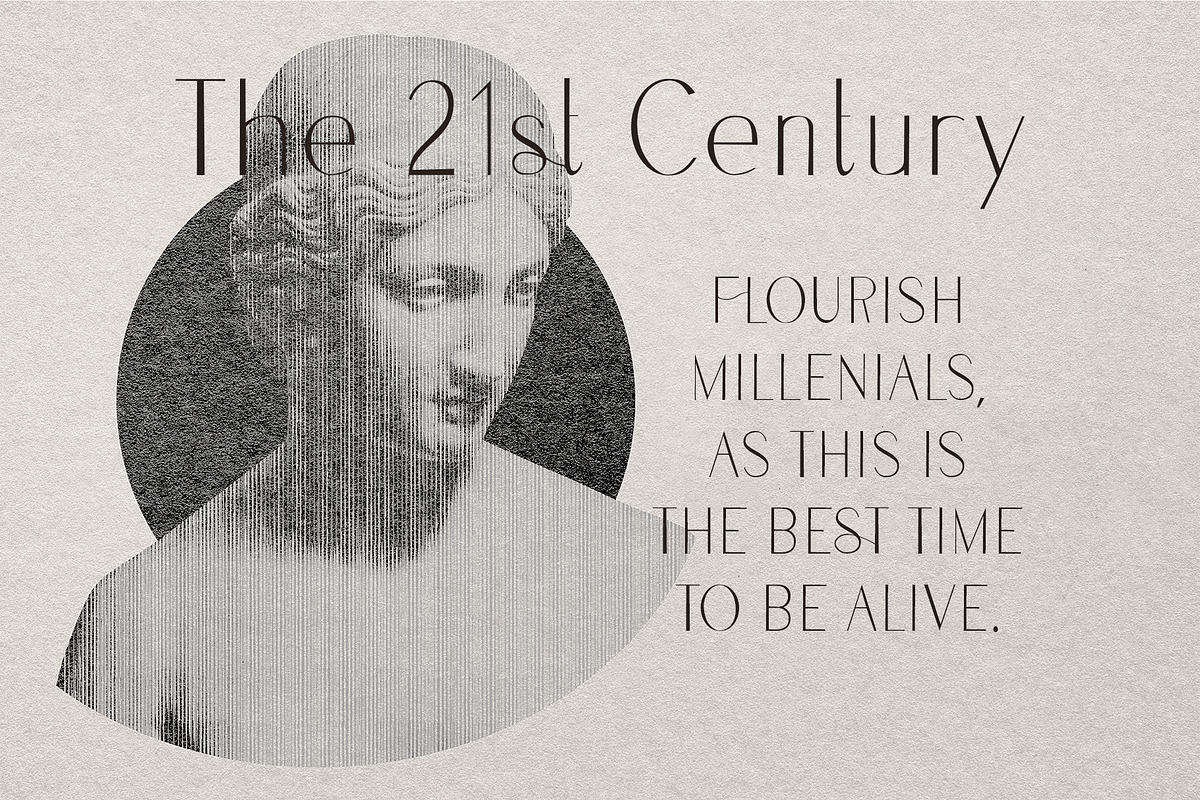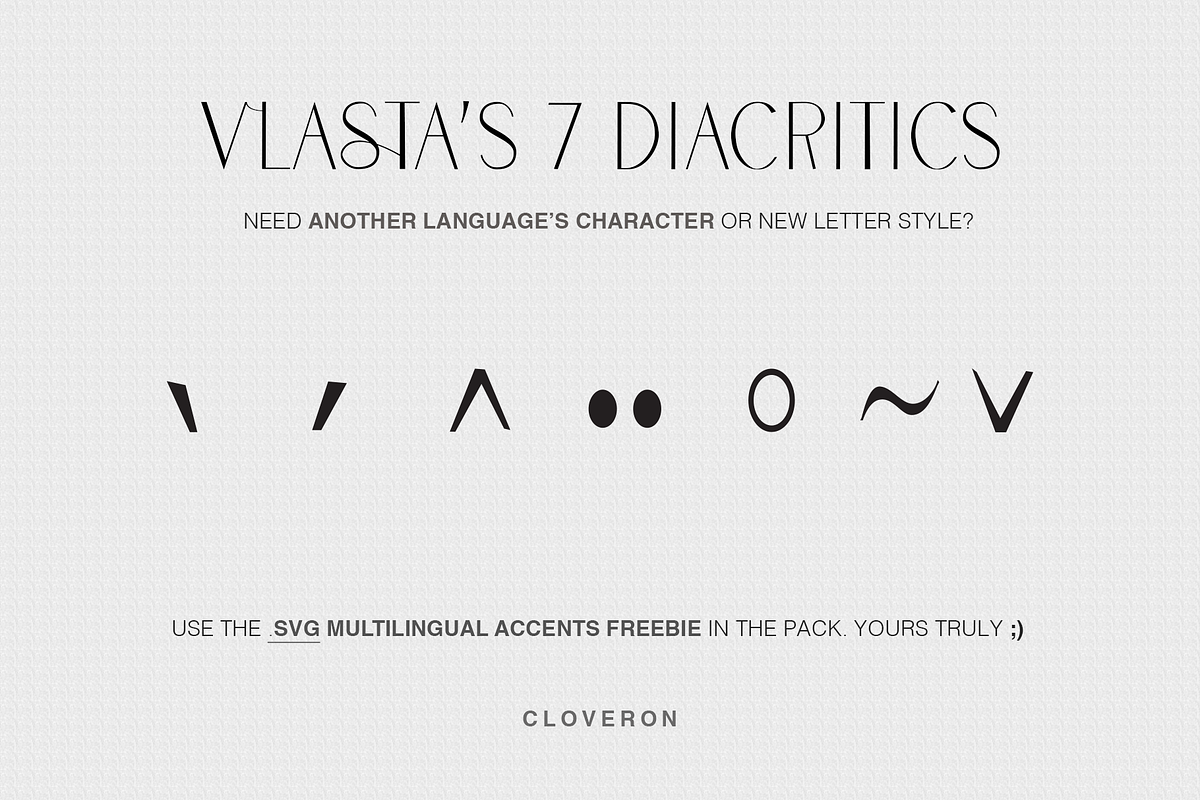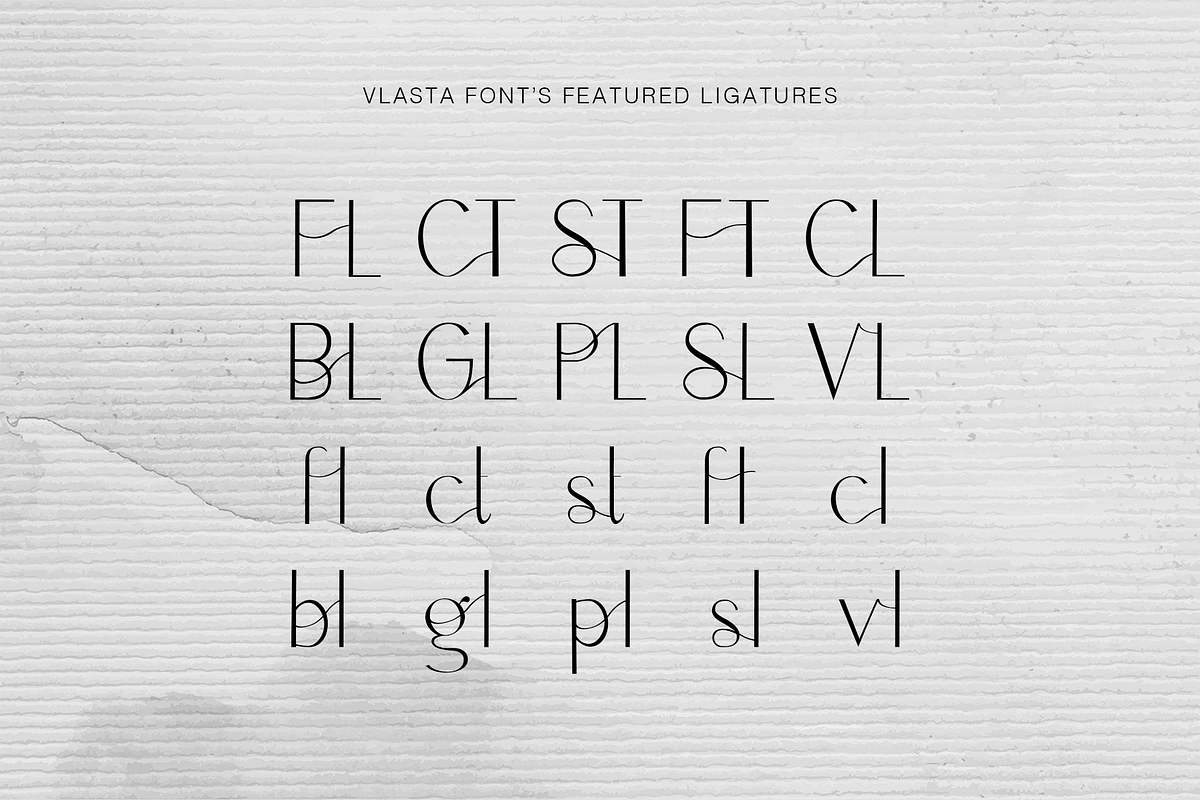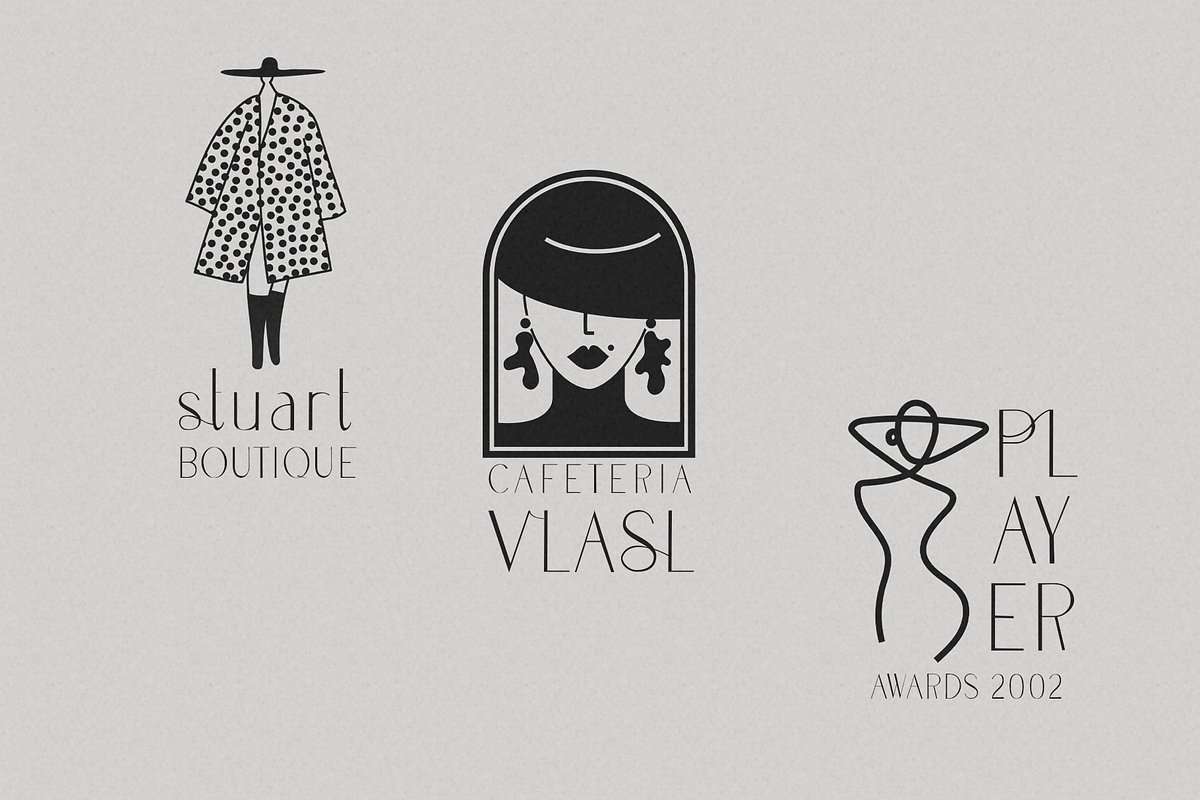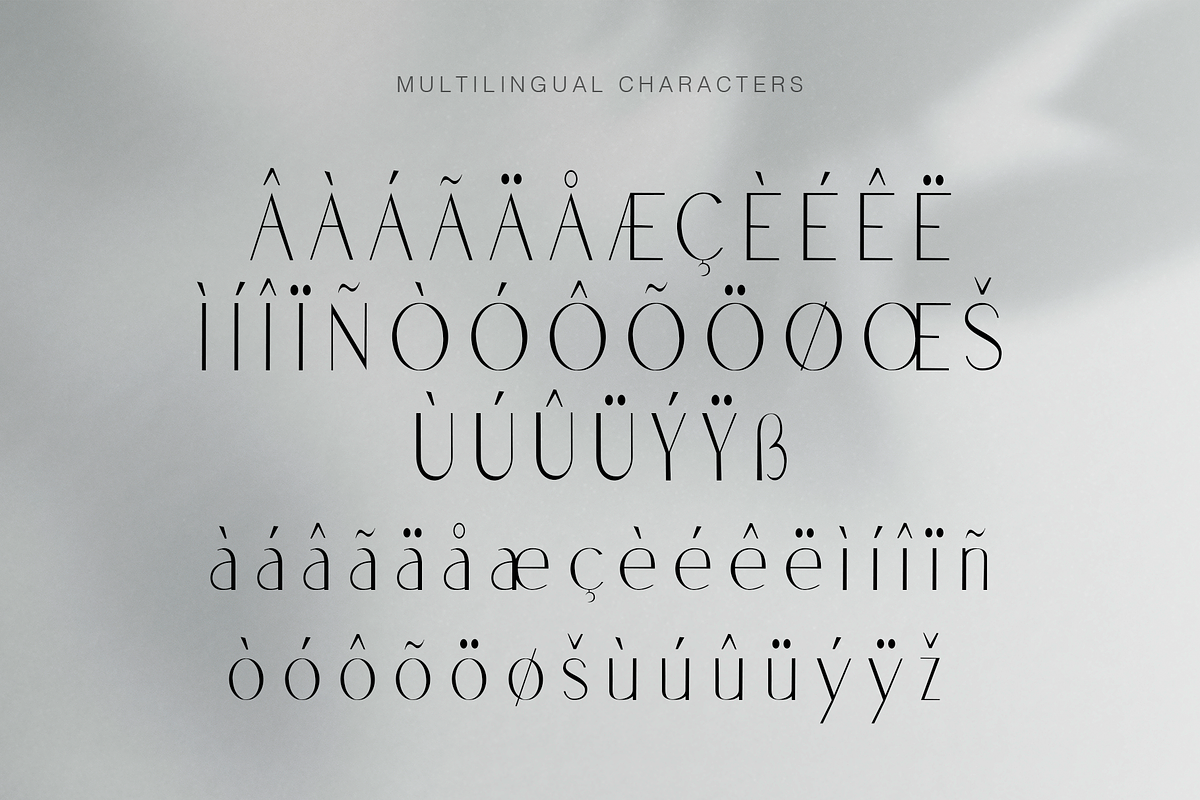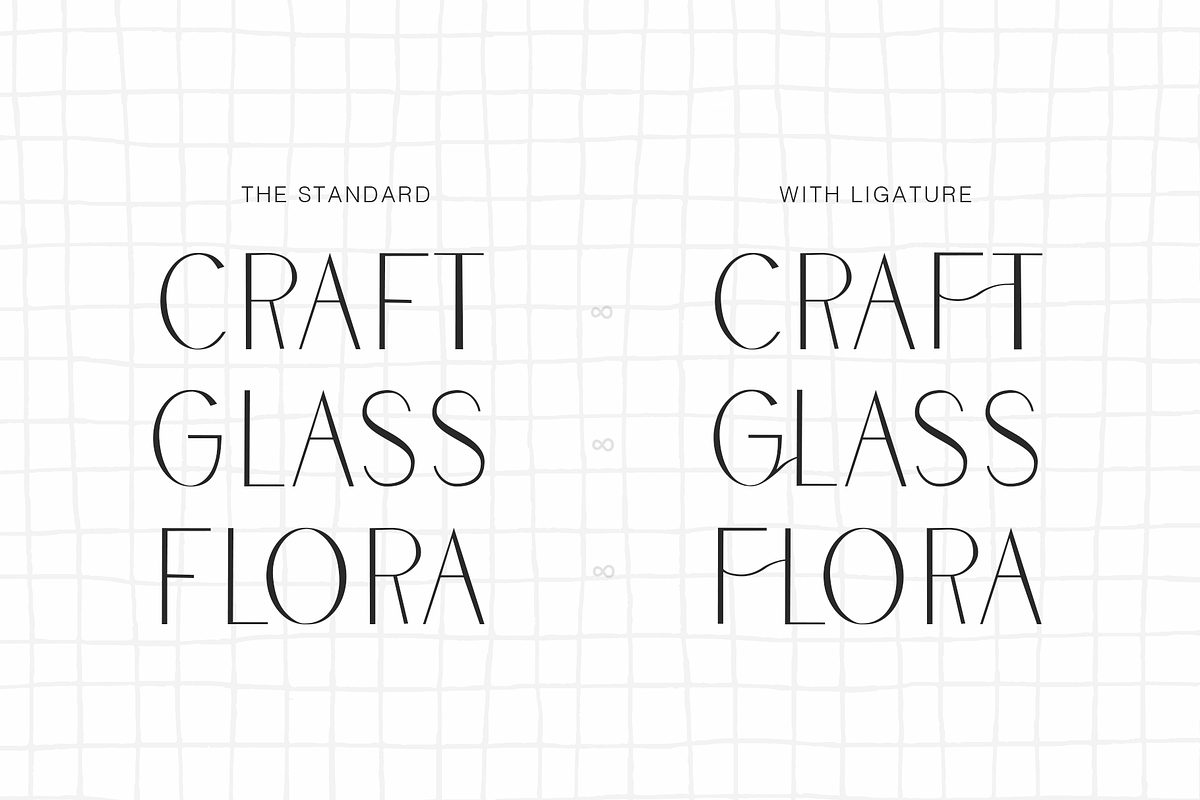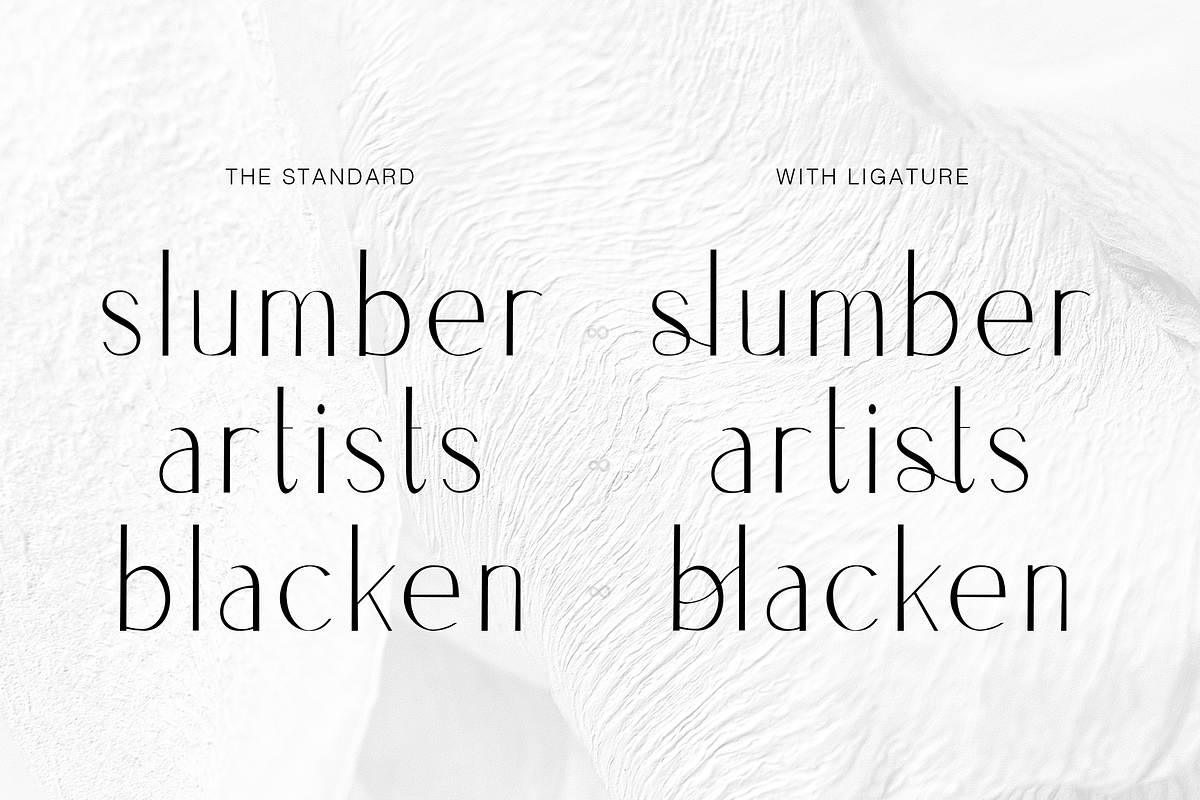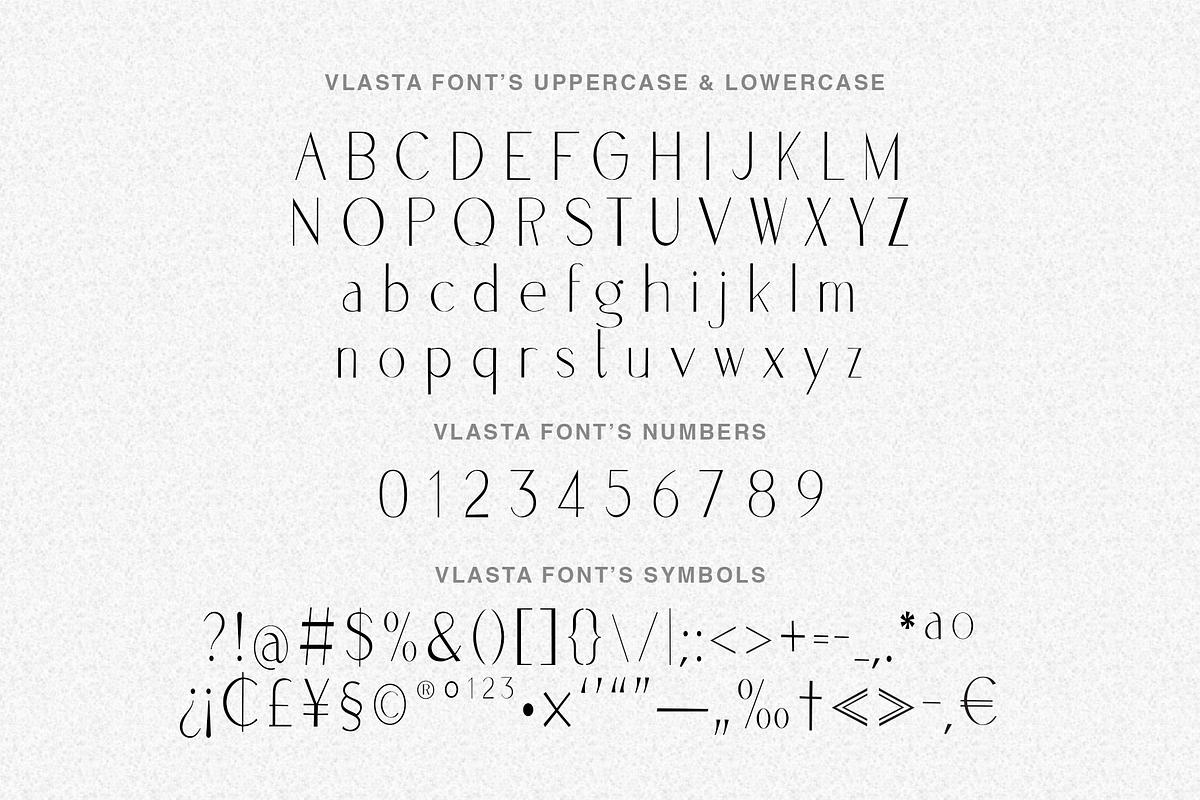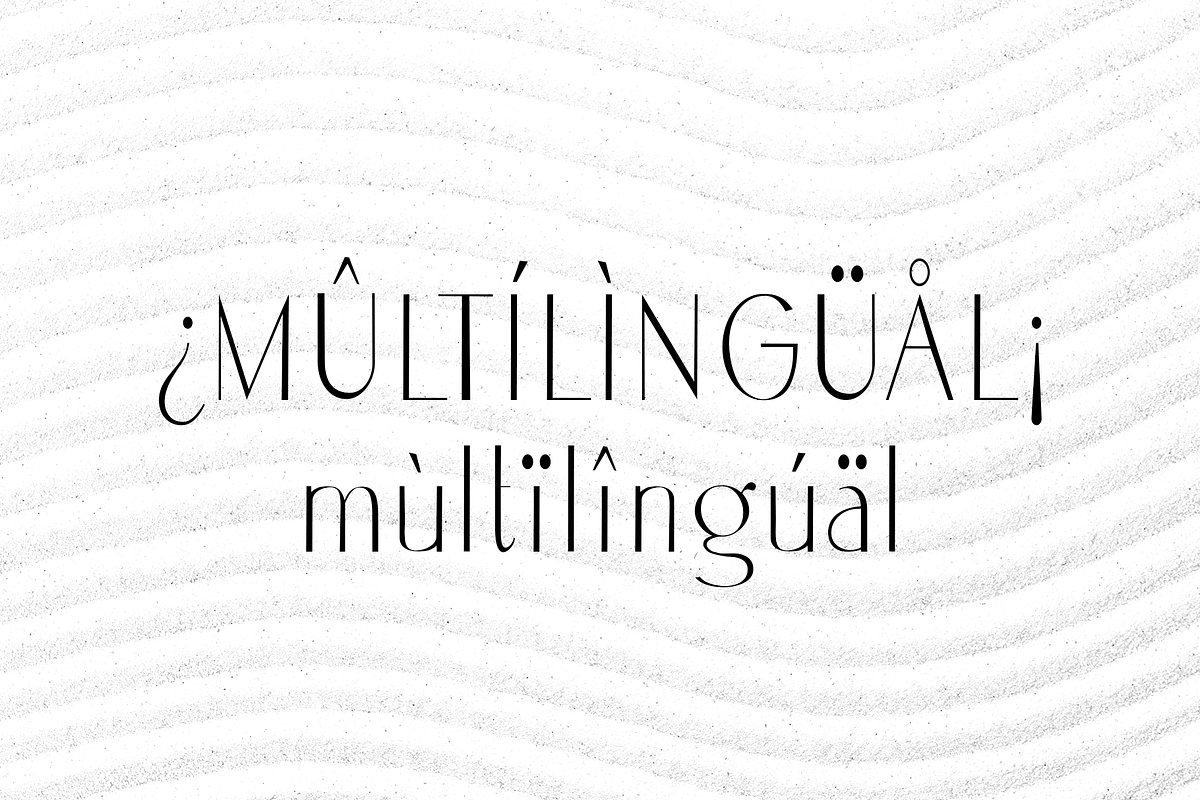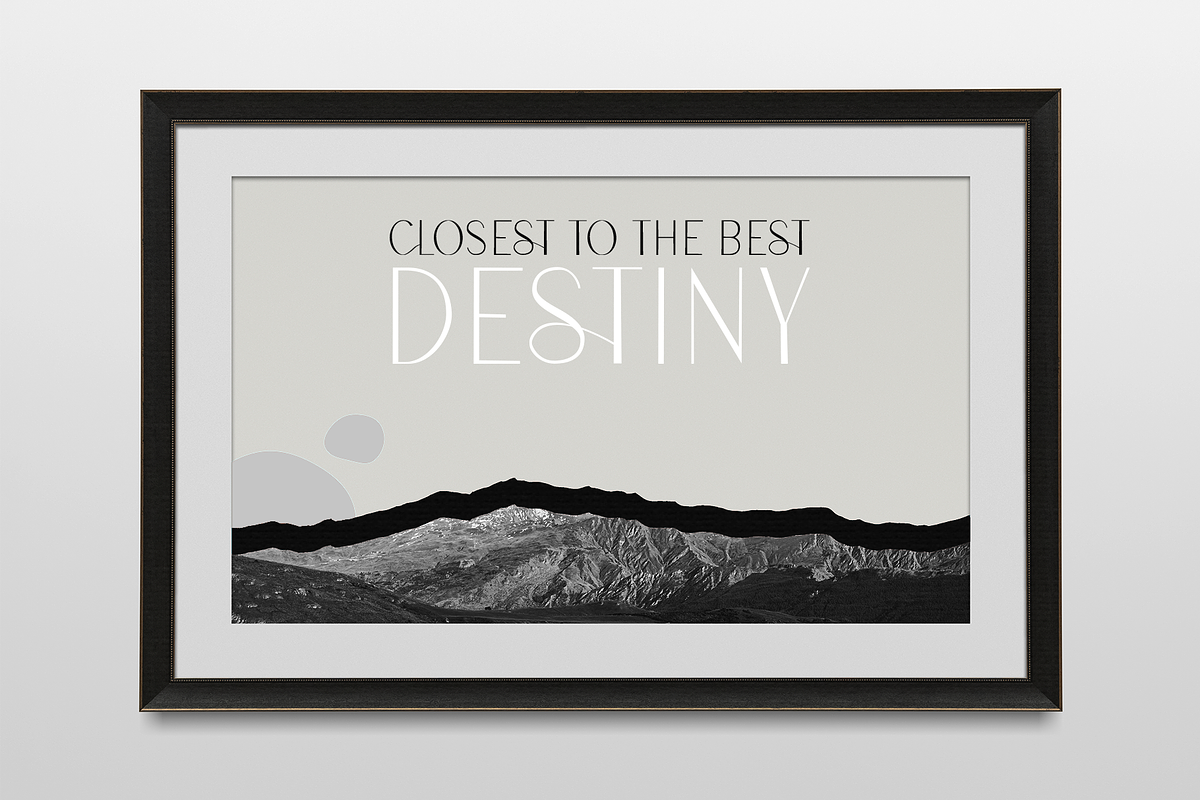
Vlasta Minimal Modern Sans Display
Meet Vlasta, a new sans serif display typeface of the 21st century. It has modern minimalist letter accents and comes with beautiful ligatures. It's a very versatile font that works as standalone or paired with other fonts. It is a great design choice for branding, logo, labels, packaging, magazine headers & so much more.
Why Labeled Sans Display?
They are not optimal for reading, in 14 points and below which is the standard for a sans serif typeface; but are inspired with the sans serif modern, clean look with added feminine personality brought by their rich ligature nature. They are most optimal for Headers, logos, and big typographic elements to convey a meaning to your audience and grab their attention in a minimalistic way.
- Weight - Regular
- Lowercase & Uppercase
- Minimalist Ligatures
- Numerals &Punctuation
- Multilingual Characters
- Language Support: Western Europe
Bonus: - Multilingual Accent .svg file - also known as diacritics so I can hopefully cover more languages. :)